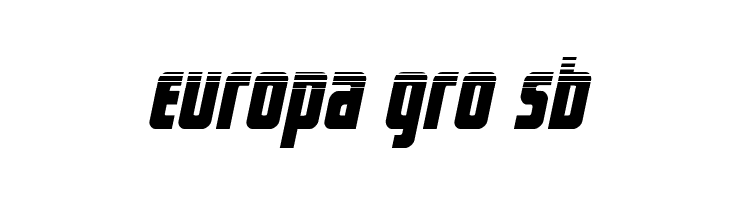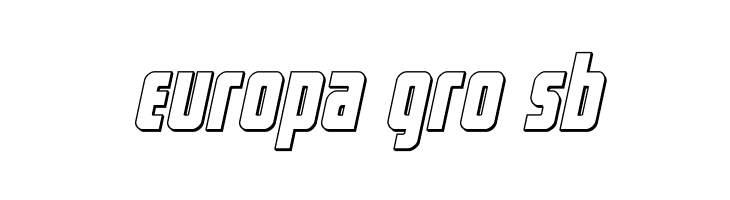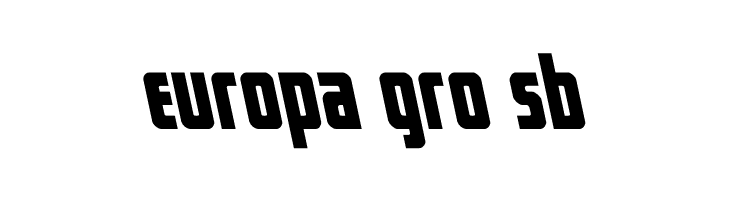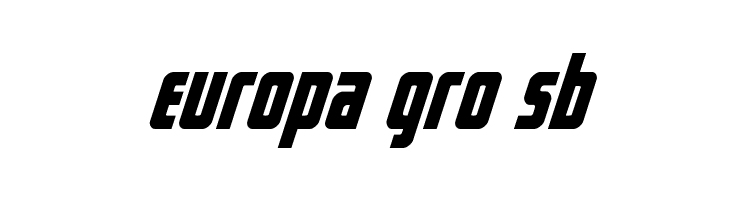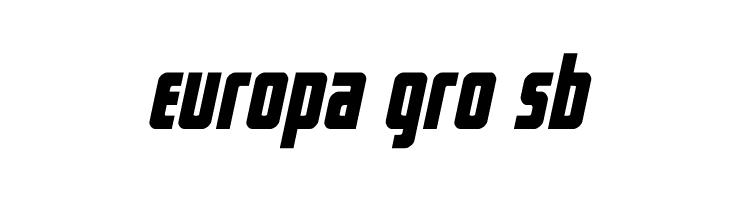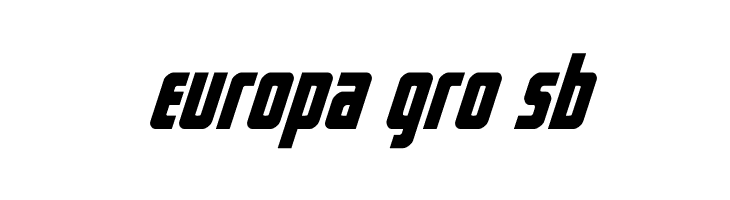
A bold, italicized font with a halftone effect, exuding a modern and dynamic style.
A bold, italic font with a dynamic and compact style, perfect for impactful headlines.
A bold, italic font with angular lines and a dynamic, modern style.
A bold, left-leaning font with a dynamic and energetic style.
A bold, outlined, and italicized font with a modern and futuristic style.
A bold, italic font with a modern, dynamic style and high contrast.
A bold, italic font with sharp, angular lines and a dynamic forward slant.
A bold, semi-italic font with a dynamic and modern style.